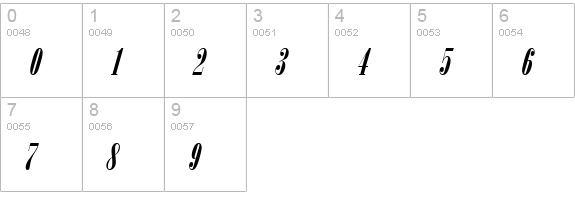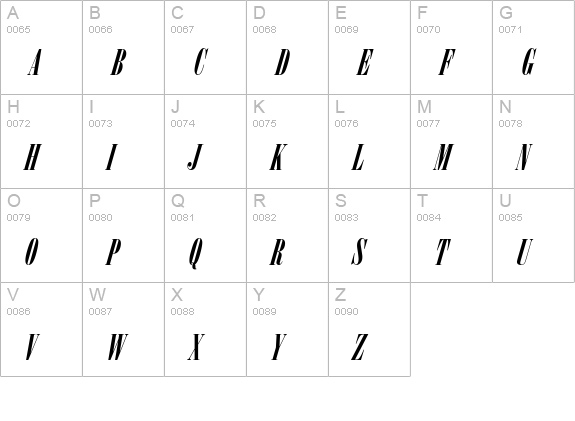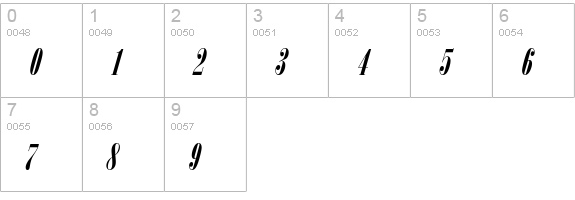
ArsisDEEReg Italic Font Details
ArsisDEEReg Italic is a distinctive, italic variant in the ArsisDEEReg typeface family \xE2\x80\x94 well suited to design and typography projects.
ArsisDEEReg Italic font is a beautifully crafted typeface that exudes elegance and sophistication. Its sleek and modern design is perfect for adding a touch of style to any project. The italicized characters give a sense of movement and dynamism, making it ideal for conveying a sense of energy and creativity. The ArsisDEEReg Italic font is versatile and can be used for a wide range of design projects, from logos to branding, invitations to posters. Its clean lines and balanced proportions make it easy to read and visually appealing. Best of all, ArsisDEEReg Italic font is available for free download at FontsMarket.com. So you can add this stunning font to your collection without any cost. Don't miss out on this fantastic opportunity to enhance your designs with the ArsisDEEReg Italic font.